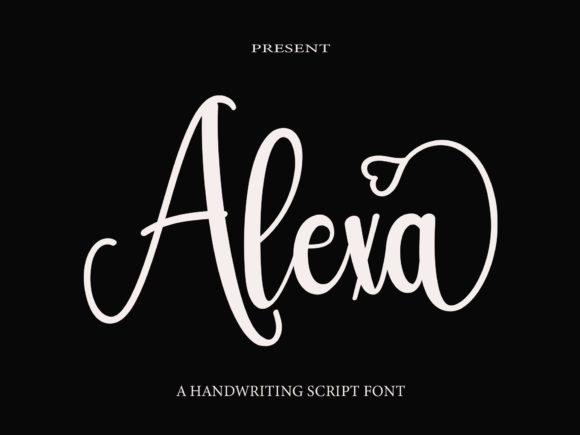
Step into the world of Alexa Font, where elegance and charm dance together in perfect harmony. This exquisite script font is a symphony of creativity, designed to infuse your designs with a touch of magic and wonder. Alexa Font is more than just a collection of letters; it's an expression of artistry that will transform your words into captivating visual masterpieces.
Immerse yourself in the beauty of Alexa Font, where every curve and stroke is carefully crafted to evoke emotion and inspire imagination. Let your fingers glide across your keyboard, shaping words that carry the weight of your heartfelt messages and resonate with your audience. Whether you're scripting an enchanting wedding video, creating an unforgettable logo, or crafting a piece of heartfelt poetry, Alexa Font will be your unwavering companion, elevating your words to new heights.
Picture your designs adorned with the ethereal beauty of Alexa Font. Imagine your wedding video, each frame a testament to the love and joy you share, brought to life by the enchanting strokes of Alexa Font. Your words will dance across the screen, captivating your audience with their grace and elegance. Witness the power of Alexa Font as it transforms your brand name into a symbol of sophistication and allure, leaving an unforgettable impression on your customers. See your book covers adorned with Alexa Font, enticing readers with a promise of stories that transport them to worlds unknown.
In a world saturated with ordinary fonts, Alexa Font stands as a beacon of originality, a testament to the boundless creativity of the human spirit. Its delicate strokes and playful charm will add a spark of personality to any project, making it stand out from the crowd. As you explore the endless possibilities of Alexa Font, you'll discover a font that is as versatile as it is beautiful, as timeless as it is modern. It will seamlessly adapt to your creative vision, whether you're designing a poster that captures the essence of a moment or crafting a piece of art that will be cherished for generations to come.
With Alexa Font as your creative companion, you'll unlock a world of endless possibilities. Its enchanting allure will cast a spell on your audience, drawing them into your creations and leaving them captivated by your message. Embrace the transformative power of Alexa Font and witness the magic unfold as it elevates your designs to new heights of beauty and sophistication.